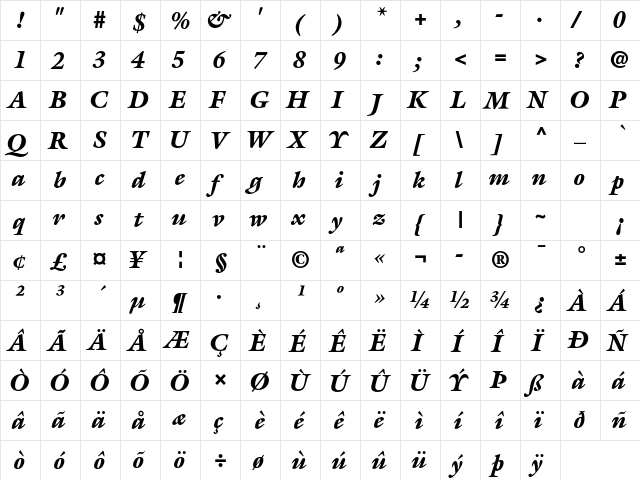
ITC Galliard Std Black Italic
| Designer | Matthew Carter |
Design Context for ITC Galliard Std Typeface
ITC Galliard Std takes a measured approach to typography — its balanced proportions and neutral character make it a reliable workhorse for both digital and print work. Its italic angle brings a sense of urgency and motion to the letterforms.
Pro Tip: Try ITC Galliard Std for annotation and caption copy alongside an upright companion — the contrast in angle creates a dynamic but ordered typographic system.